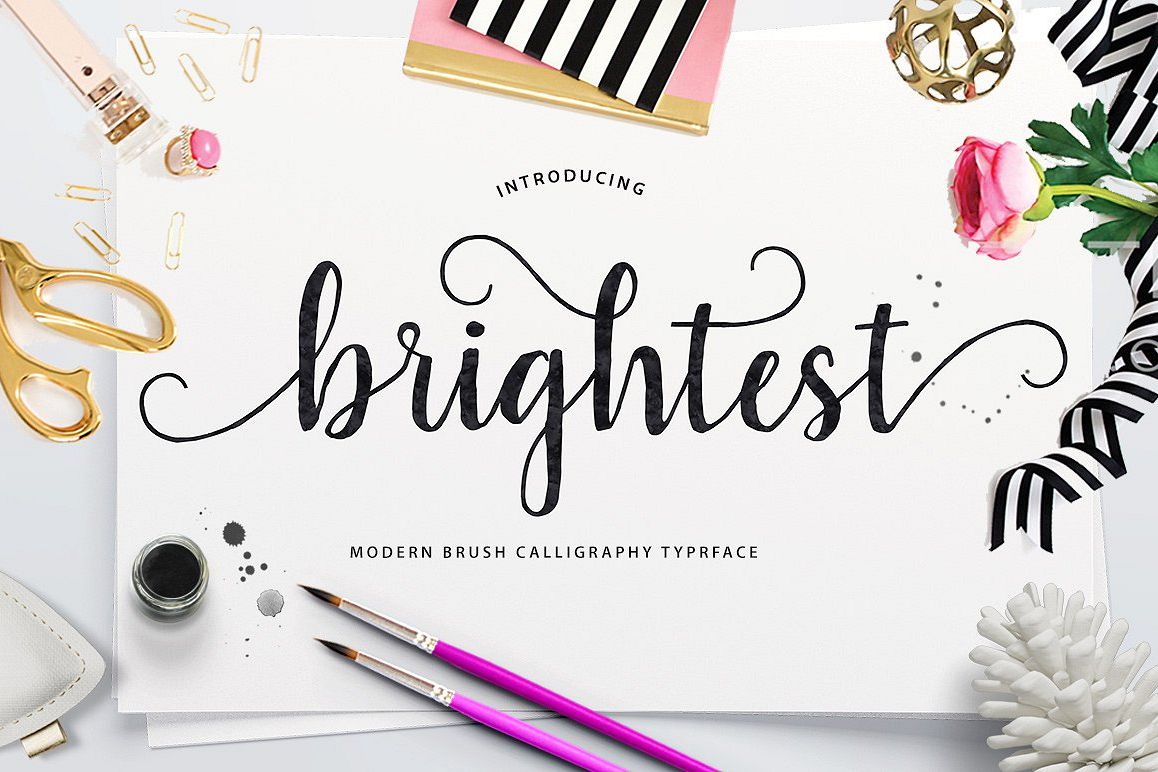
Brightest Script - a new fresh & modern script
with a Brush calligraphy-style, decorative characters and a dancing
baseline! So beautiful on invitation like greeting cards, branding
materials, business cards, quotes, posters, and more!
Brightest come with 265 glyphs. The alternative characters were
divided into several Open Type features such as Swash, Stylistic Sets,
Stylistic Alternates, Contextual Alternates, and Ligature. The Open Type
• Initial Alternates
• Contextual Alternates
• Standard ligatures
• Unique ligatures
• Stylistic sets
• Basic Latin A-Z and a-z
• International Symbols include